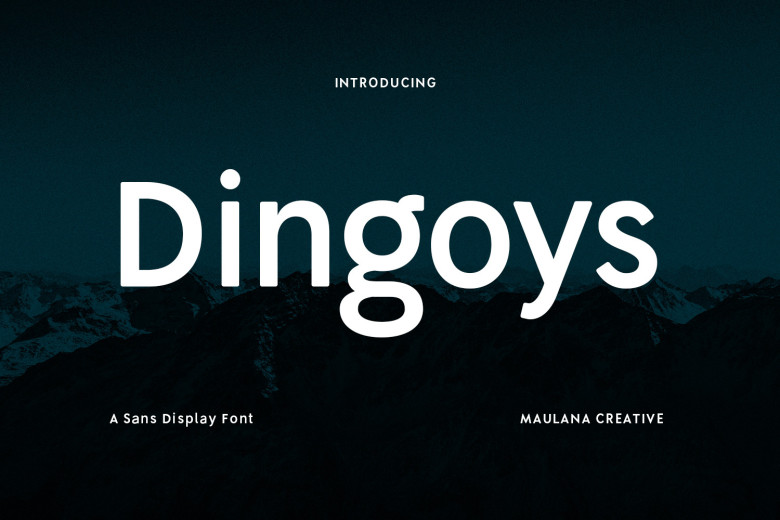
Dingoys Font
Dingoys is a modern fun type font suitable for Sans-Serif and Quirky. With regards to the consist character, fun alternates, and ligatures Dingoys regular stroke does best. Whether you are engaged in some creative design work at home, Dingoys can help provide an extra edge. Dingoyes is a multilingual 100+ font.
This font is perfect for logo design, Social media, Movie Titles, Books Titles, a short text even long text letter, and is ideal for your secondary text font with script or serif. Create a stunning work with Dingoys font.
Dingoys Sans Serif Font